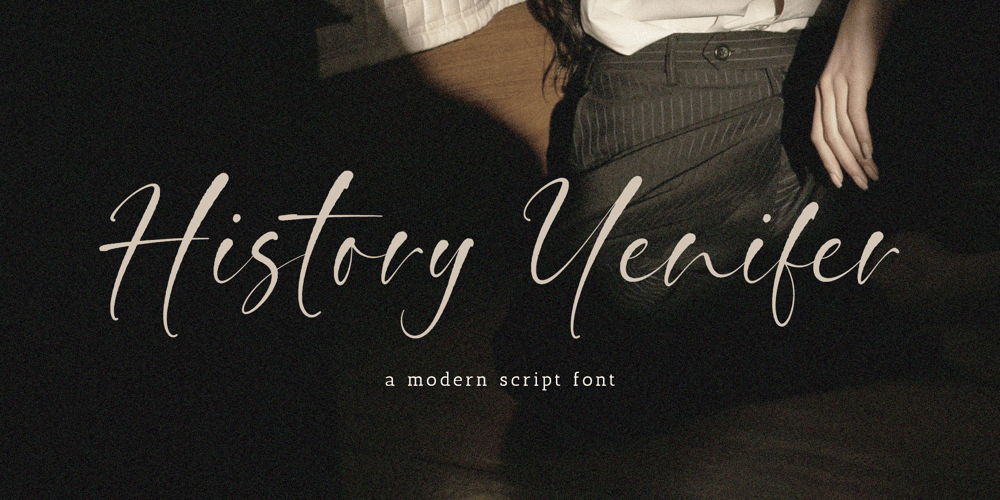
History Yenifer Font Family was designed by Wara Sigit Tri Pamungkas and published by Timurtype. History Yenifer contains 1 styles and family package options. Introducing by Timur typeProudly Present, History YeniferA Handwritten FontHistory Yenifer is perfect for product packaging, branding project, megazine, social media, wedding, or just used to express words above the background.This History Yenifer font includes:-Full Set of standard alphabet and punctuation & symbol-Extra set Alternate ending lowercase-multilingual support.Embelish your designs with our original fonts.Enjoy the font, Thank you!